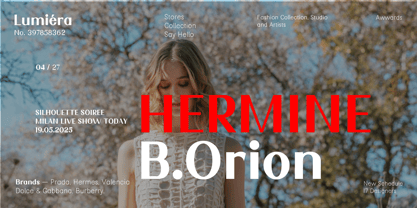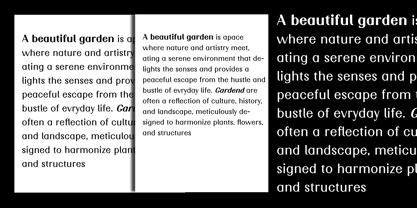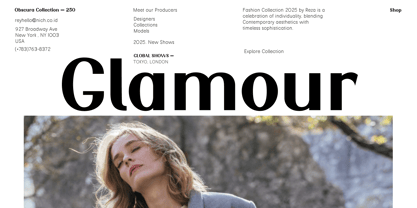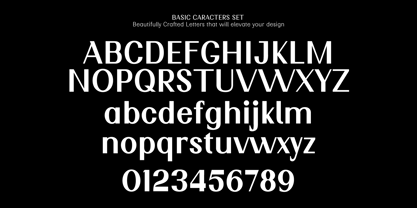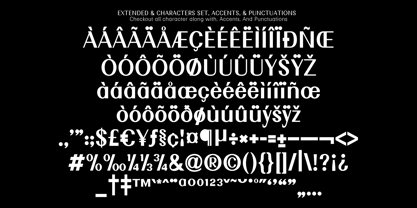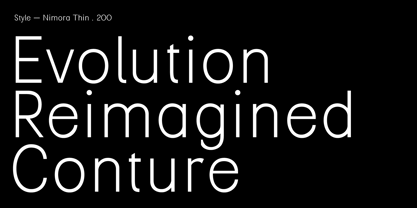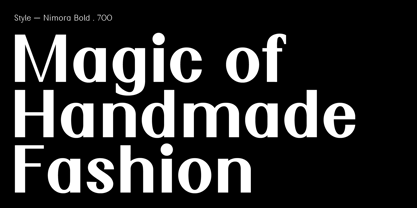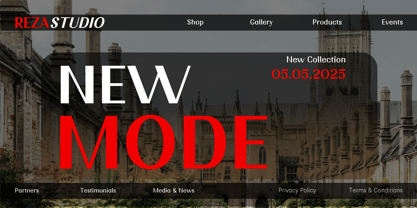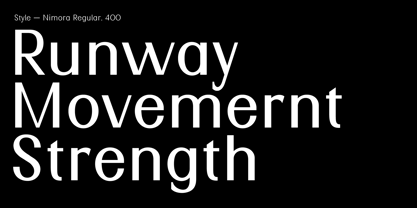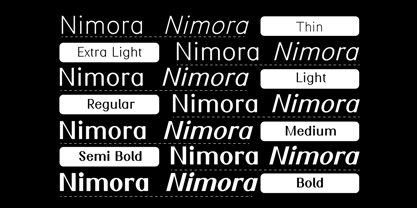
Nimora
by Rezastudio
The Nimora Font Family was designed by Reza Mukhtazar and published by Rezastudio. Nimora contains 14 styles and family package options. More about this family
Introducing Nimora, a clean and versatile sans serif font family designed to bring modern elegance and professional style to your creative projects. Whether you're working on branding, editorial layouts, packaging, or digital interfaces, Nimora offers the flexibility you need.
• 7 Weights: Thin, Extra Light, Light, Regular, Medium, Semi Bold, Bold
• Matching Italic styles for each weight
• Multilingual support
Nimora is perfect for logos, posters, websites, apps, magazines, and more. With its minimal yet confident character, it adapts beautifully across a wide range of design styles and formats.
Let your typography stand out with the timeless simplicity of Nimora.